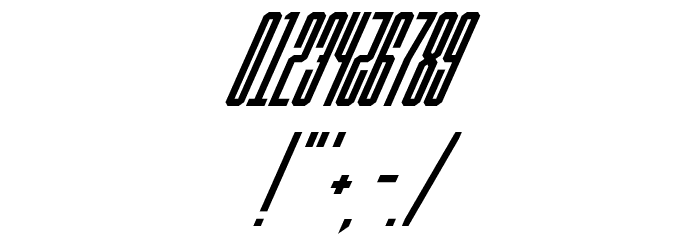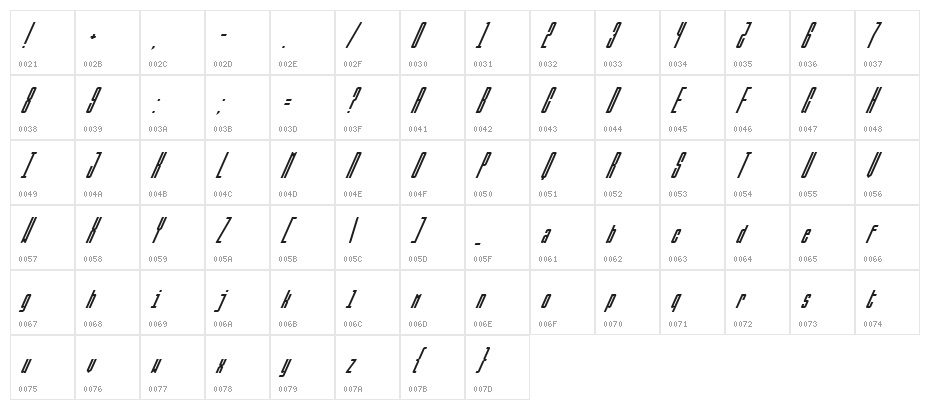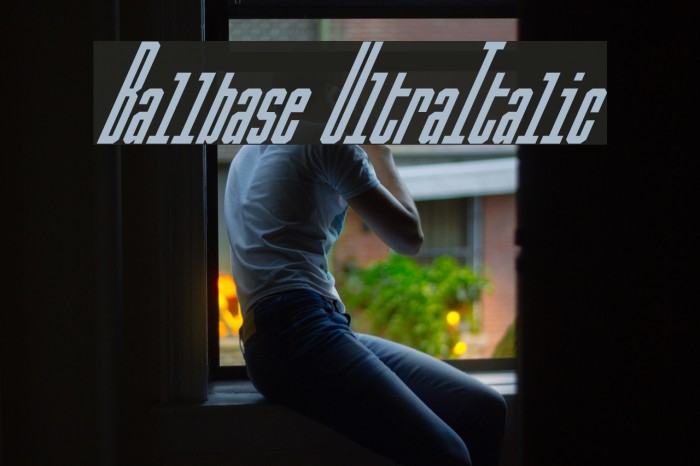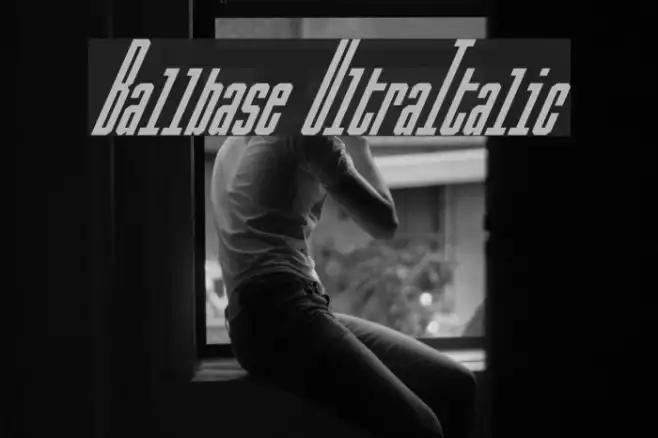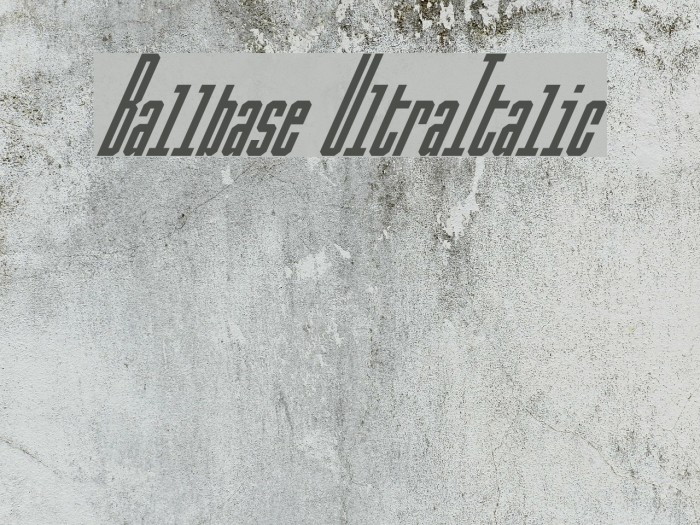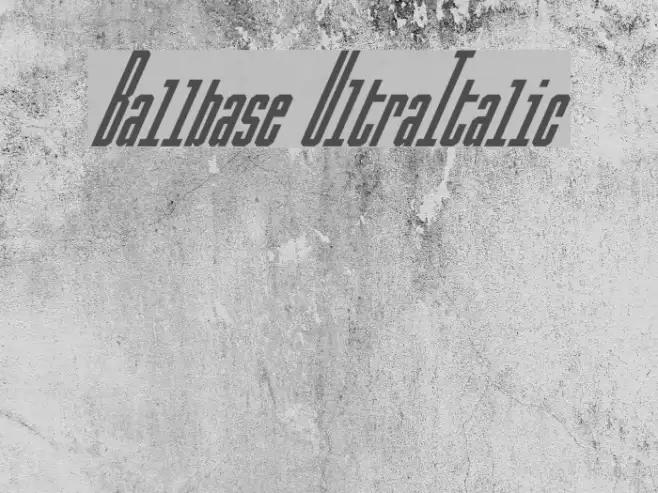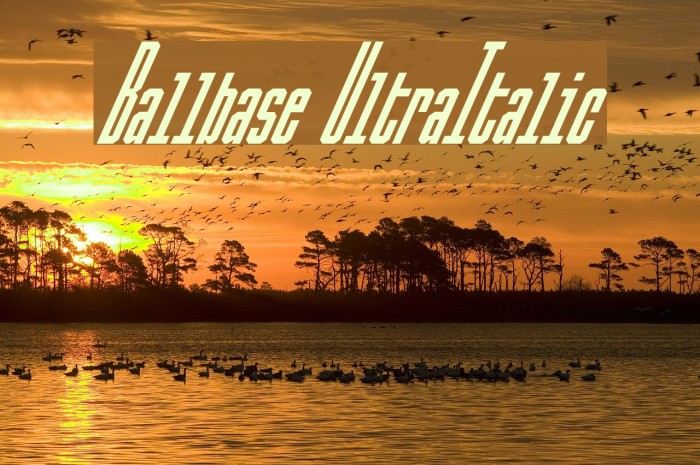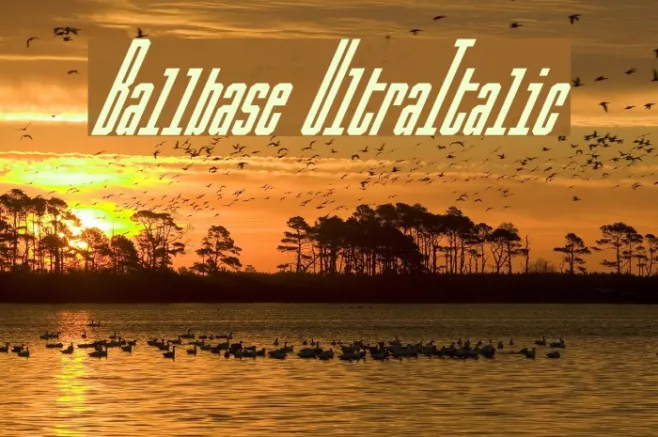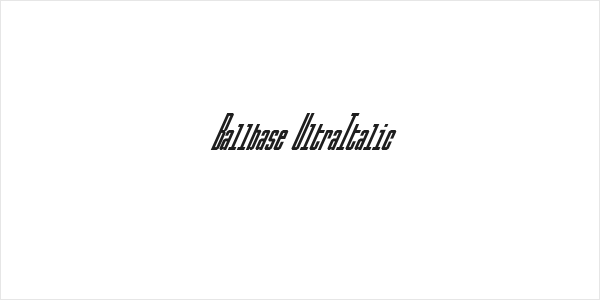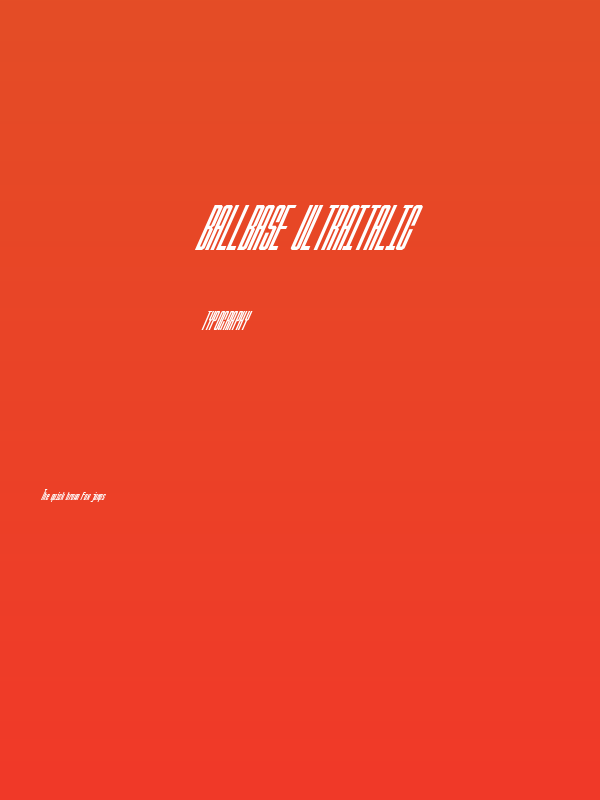
Ballbase UltraItalic Font
Ballbase UltraItalic Description
This font exhibits a dynamic and energetic style with its ultra-italicized form, creating a sense of motion and speed. The characters are sharply angled, giving a futuristic and edgy appearance. The strokes are bold and consistent, with a slight slant that enhances the italic effect. The uppercase and lowercase letters maintain a uniform height, contributing to a cohesive look. The numerals and special characters are designed to match the overall style, ensuring versatility across different uses. This font is ideal for projects that require a modern and impactful visual statement.